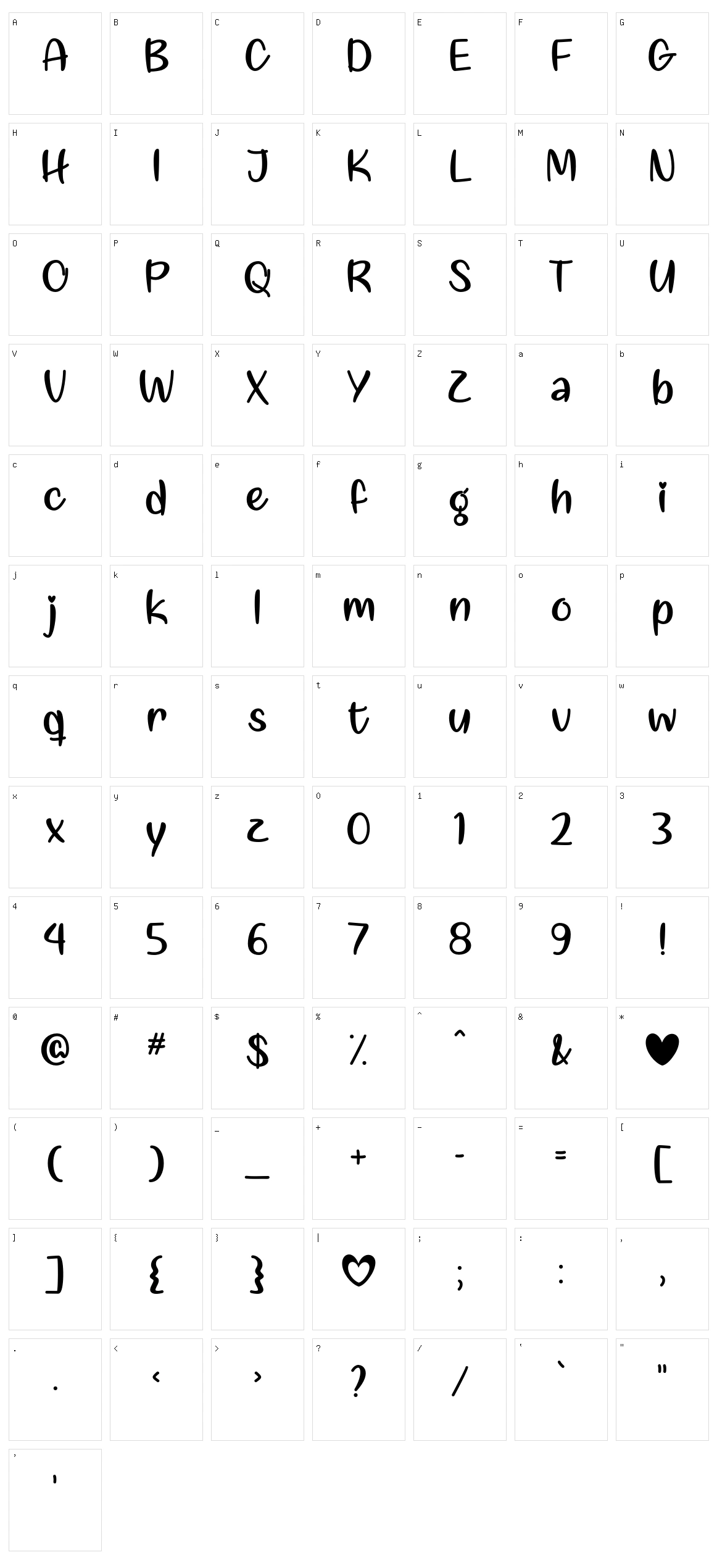
The free font Liebe finden is carefully designed by Misti's Fonts, showcasing a thoughtful balance of creativity and usability and falls under the Valentine font style. When you download the ZIP file, it contains only 90.59 KB of font files, making it lightweight and quick to download. Please review the license details below to understand permitted usage and distribution rights. If license information is not available, we recommend using this font for personal projects only or contacting the author directly for commercial usage permissions.